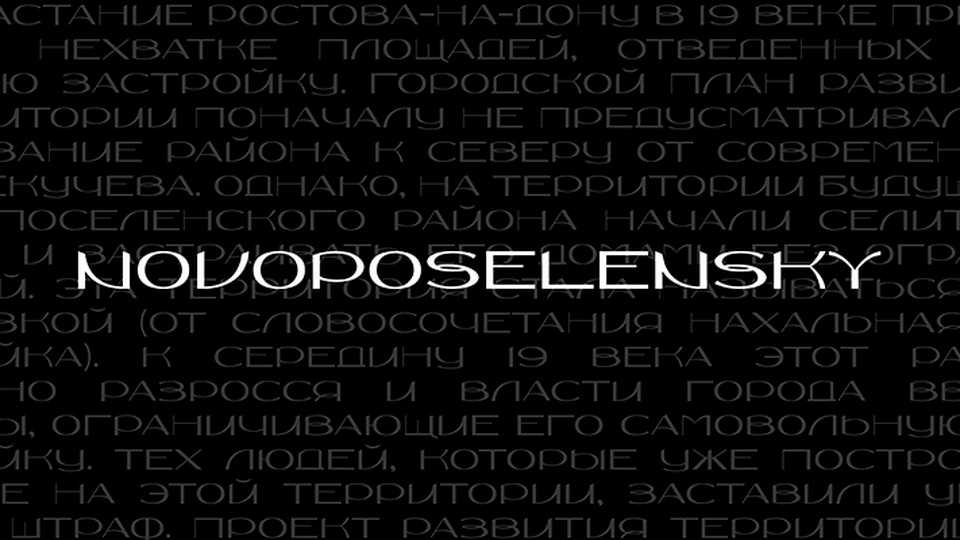
Download Novoposelenskiy font, a display grotesque with contrasting lines and graceful form. Novoposelenskiy font was named after the geographical territories of the South of Russia visited by author.
Designer: Sasha Pavljenko